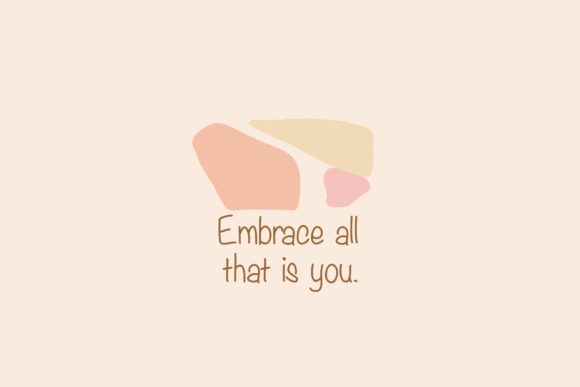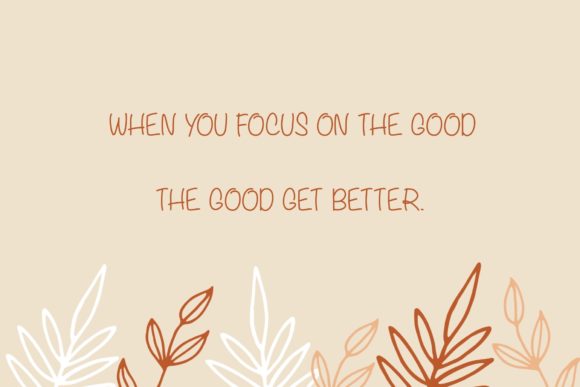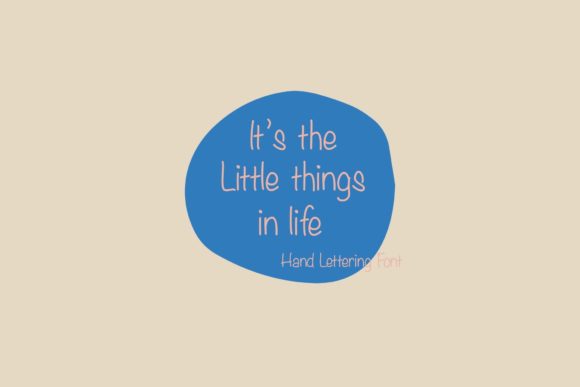
Penelope Font
About Penelope Font
Penelope is a cute and charming display font. Whimsical and a bit quirky, this font will brighten up each of your designs. Add it confidently to your projects, and you will love the results.